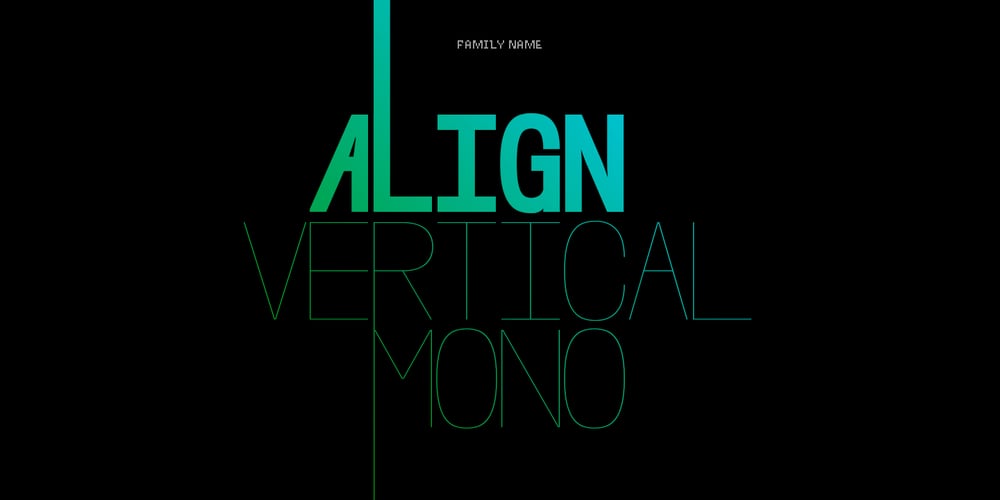
Align Vertical Mono Font Family was designed by Pedro Mascarenhas and published by Mom. Align Vertical Mono contains 4 styles and family package options. Align Vertical Mono has an innovator construction which gives to the designer the ability to align the letters creating beautiful patterns on the page. It was design by the Tyner (typography Designer) Pedro Mascarenhas to fill a gap in type design. With Align Mono Family type will be the leading role of the design. The final result of the art work depends of the choices designer makes for each glyph.